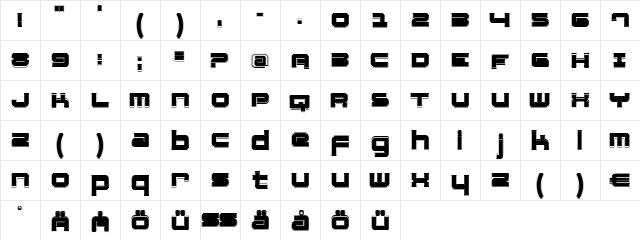
FatsansContur Regular
Design Context for FatsansContur Typeface
FatsansContur is a composed and adaptable typeface that performs quietly and consistently across a wide range of design contexts.